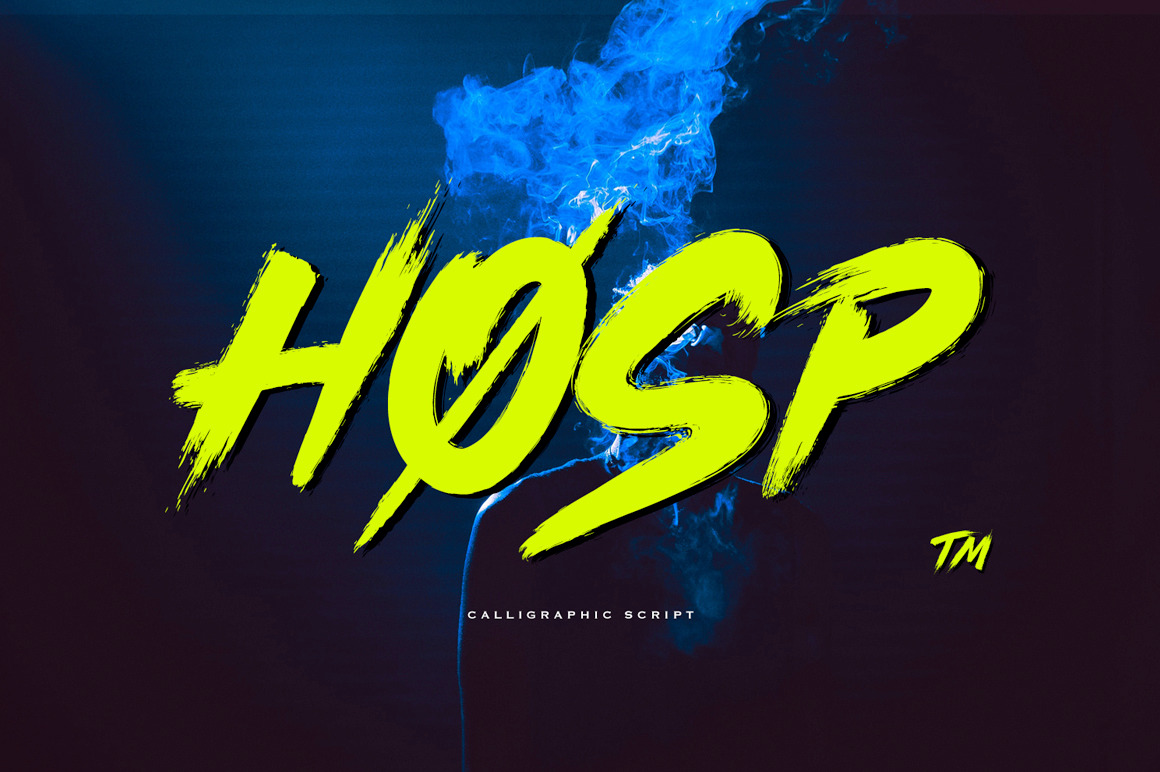
Hosp Brush Font
๐ข Awesome Brush Script - HOSP! ๐ข
๐๐ป This handwritten font is best weapon for designers, filmmakers, photographers and any artist who want to bring some cool urban mood to the artwork!
The font is perfect for videos, cover design, and prints but we believe script is perfect for any project where you need to create urban, underground atmosphere!
High-Quality Script
Roman Alphabet
Punctuation Symbols
easy to use and modify
create your own stylish design